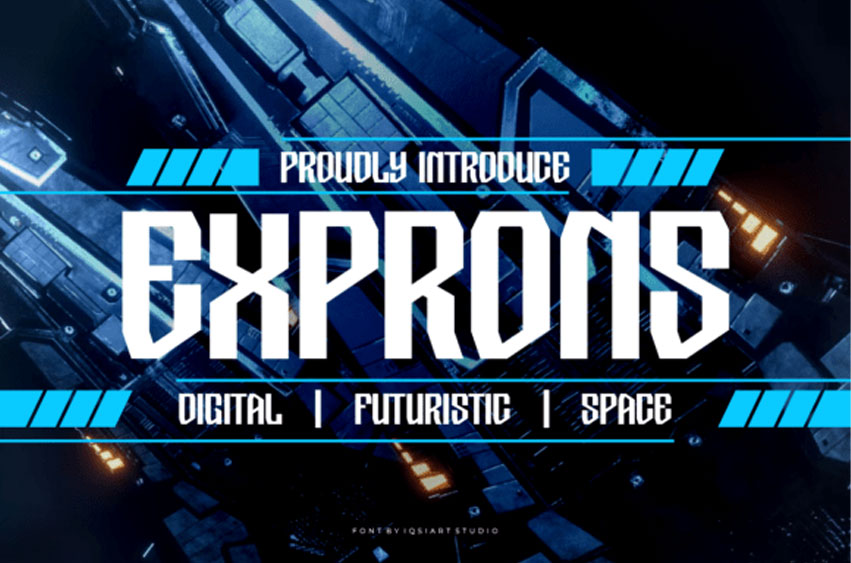
Exprons Font
Exprons Font is a sharp, high-tech display font crafted for the digital age. With angular cuts, geometric precision, and a futuristic edge, this typeface is ideal for sci-fi designs, gaming titles, tech branding, and space-themed projects.
Its bold and modern aesthetic makes it a go-to choice for UI interfaces, esports logos, and cyberpunk visuals that need to stand out.
If your design demands innovation and attitude, Exprons delivers with digital grit and sci-fi flair.